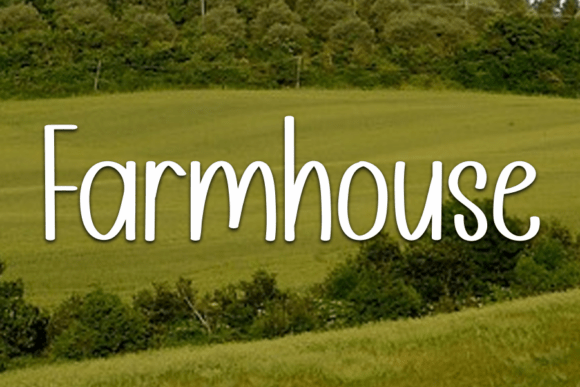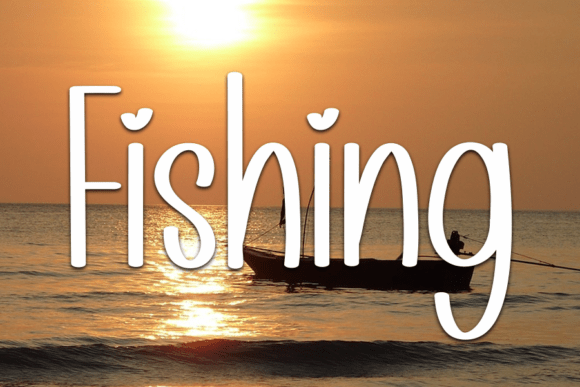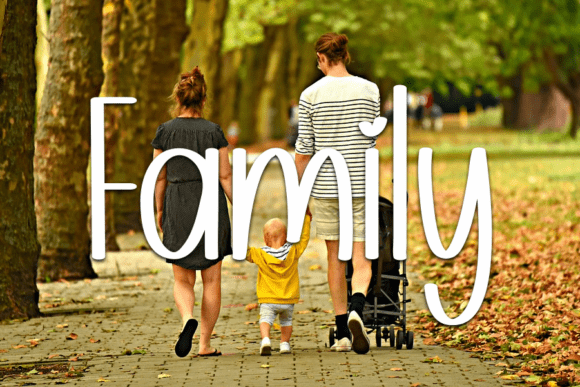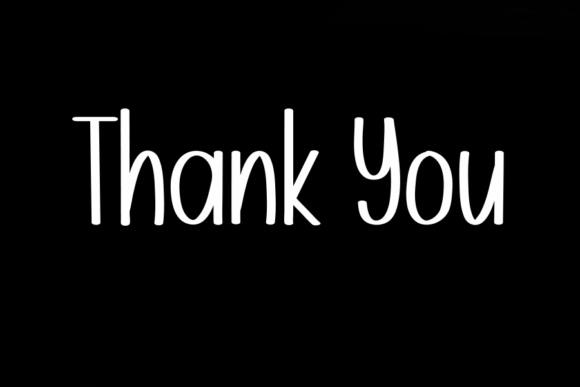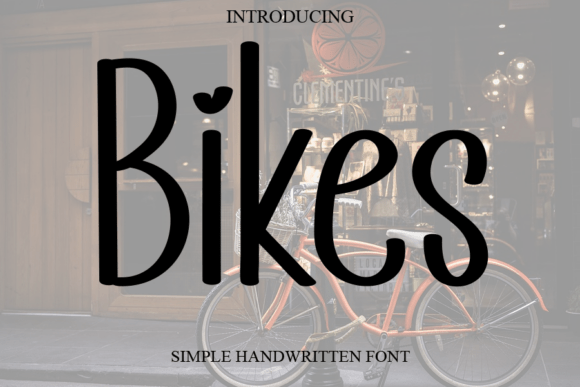
Bikes Font: A Simple Handwritten Font for Your Creative Projects
Are you looking for a font that can add a personal touch to your designs? Look no further than Bikes Font, a simple handwritten font that is versatile and easy to use. In this article, we’ll explore the features and benefits of Bikes Font, and show you how it can be used to add a natural and effortless feel to your next project.
What is Bikes Font?
Bikes Font is a handwritten font that is characterized by its simplicity and elegance. It has a wide spectrum of applications, ranging from greeting cards to headlines, and is guaranteed to add a simple and natural feel to your designs. The font is easy to read and has a friendly tone, making it perfect for a variety of creative projects.
Features of Bikes Font
- Simple and Handwritten: Bikes Font has a simple and handwritten style that gives it a personal and approachable feel.
- Versatile: The font is versatile and can be used for a wide range of applications, from greeting cards to headlines.
- Elegant: Bikes Font has an elegant style that makes it perfect for designs that require a touch of sophistication.
- Easily Readable: The font is easy to read, making it perfect for body text and headlines.
Benefits of Using Bikes Font
There are many benefits to using Bikes Font in your designs. Here are a few:
- Adds a Personal Touch: Bikes Font adds a personal touch to your designs, making them more approachable and friendly.
- Versatile: Bikes Font can be used for a wide range of applications, making it a great addition to your font library.
Using Bikes Font in Your Designs
Bikes Font is easy to use in your designs. Here are a few tips:
- Use it for Headlines: Bikes Font is perfect for headlines and titles, adding a touch of elegance and sophistication to your designs.
- Use it for Body Text: The font is also easy to read, making it perfect for body text and paragraphs.
- Experiment with Colors: Bikes Font looks great in a variety of colors, so don’t be afraid to experiment and find the perfect color for your design.
- Pair it with Other Fonts: Bikes Font can be paired with other fonts to create a unique and interesting look.
Design Ideas Using Bikes Font
Here are a few design ideas that you can use Bikes Font for:
- Greeting Cards: Bikes Font is perfect for greeting cards, adding a personal touch to your designs.
- Posters: The font is also great for posters, adding a touch of elegance and sophistication to your designs.
- Social Media Graphics: Bikes Font can be used to create social media graphics, such as Facebook posts and Instagram stories.
- Blog Posts: The font is also great for blog posts, adding a personal touch to your writing.
In conclusion, Bikes Font is a simple handwritten font that is versatile and easy to use. It has a wide spectrum of applications, ranging from greeting cards to headlines, and is guaranteed to add a simple and natural feel to your designs. With its elegant style, easy readability, and friendly tone, Bikes Font is perfect for designers and crafters who want to add a personal touch to their designs.